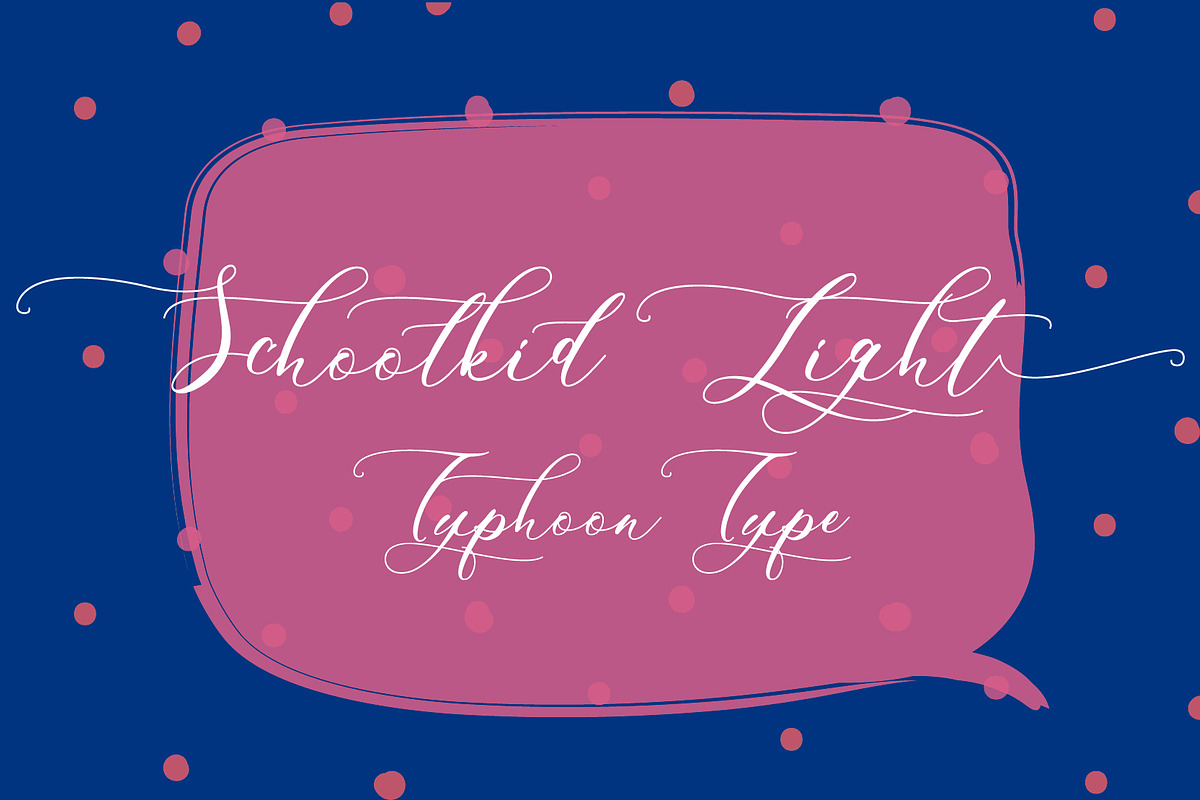
Schoolkid Light font
Schoolkid Light This font perfect for logos, name tag, advertising, product packaging, clothing, social media & greeting cards.
Type ) after word to get the Underline swash. Example : Schoolkid)
Why Schoolkid Light font is worth a look
Schoolkid Light font by TyphoonStudio fits naturally into Branding, posters, packaging, typography.